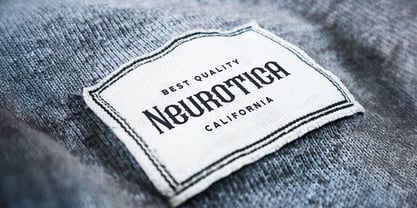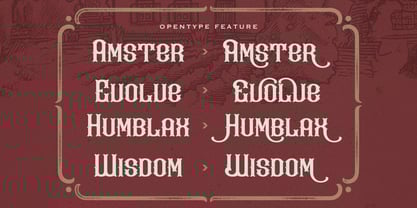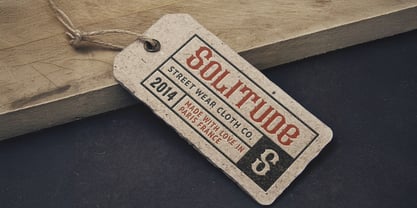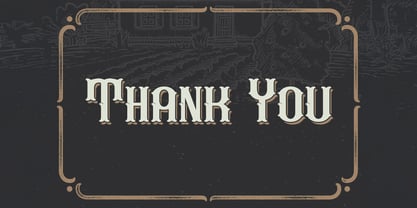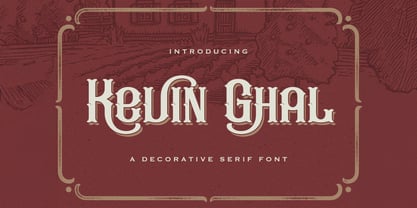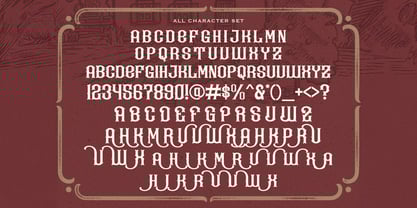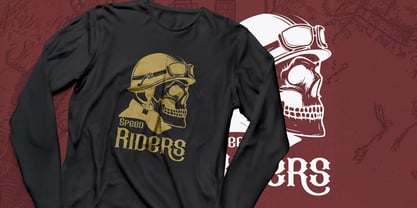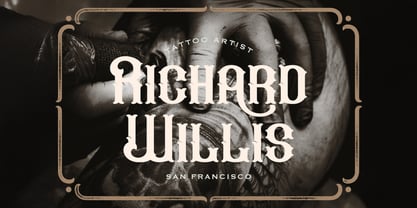
The Kevin Ghal Font Family was designed by Virgiawan Listanto and published by Stringlabs Creative Studio. Kevin Ghal contains 1 styles. More about this family
Kevin Ghal is a luxurious Victorian style font that combines vintage elegance with strong visual impact. Featuring intricate letterforms, decorative details, and a refined, old world charm, this font is perfect for designs that aim to be timeless, ornate, and unforgettable.